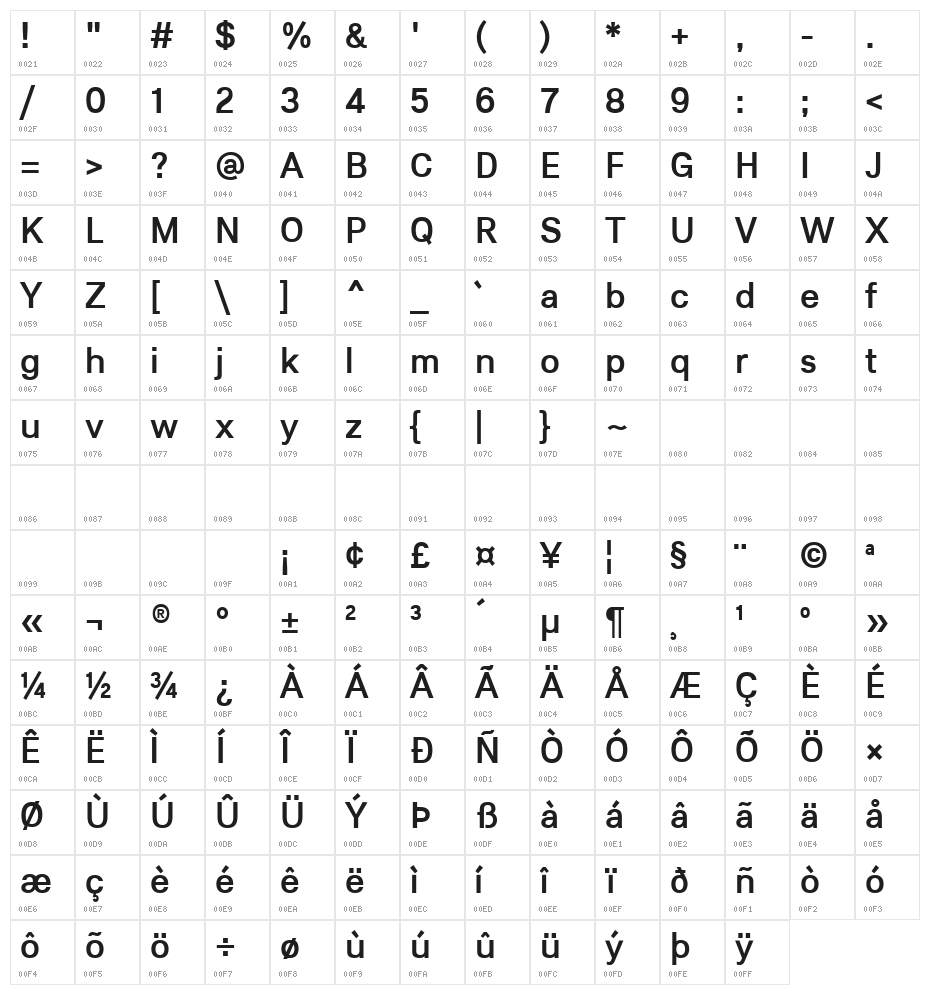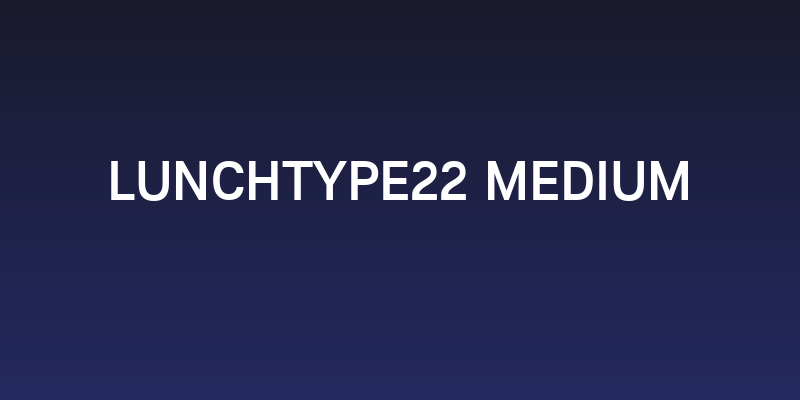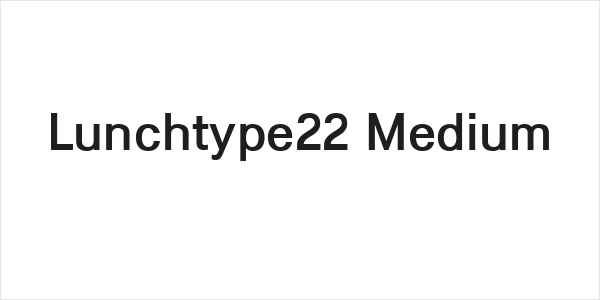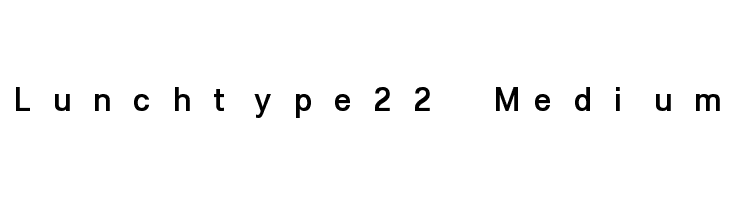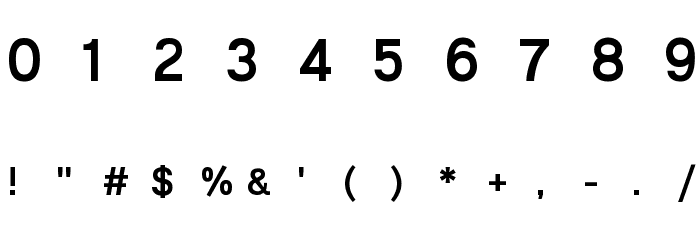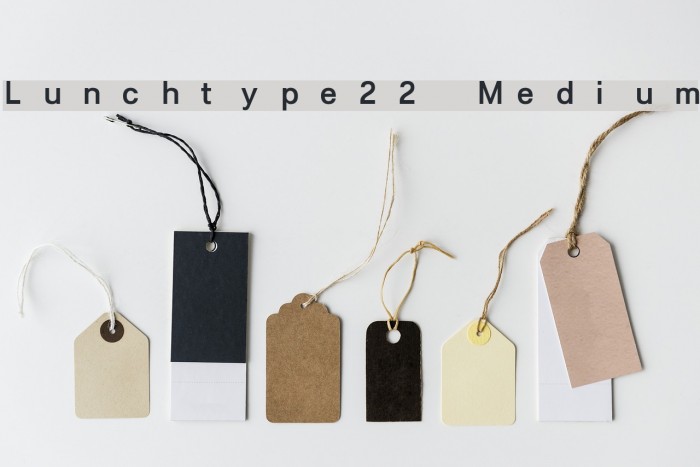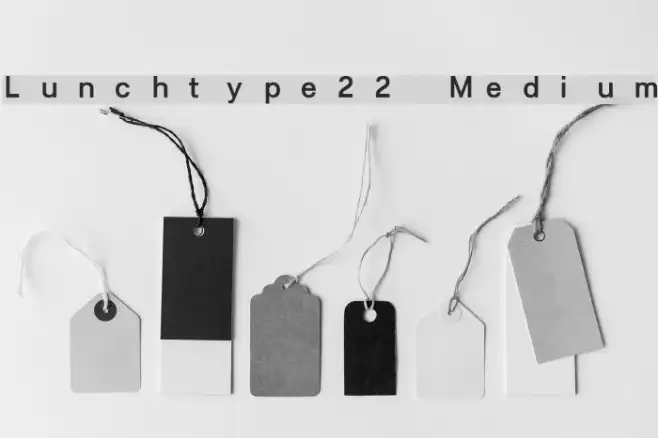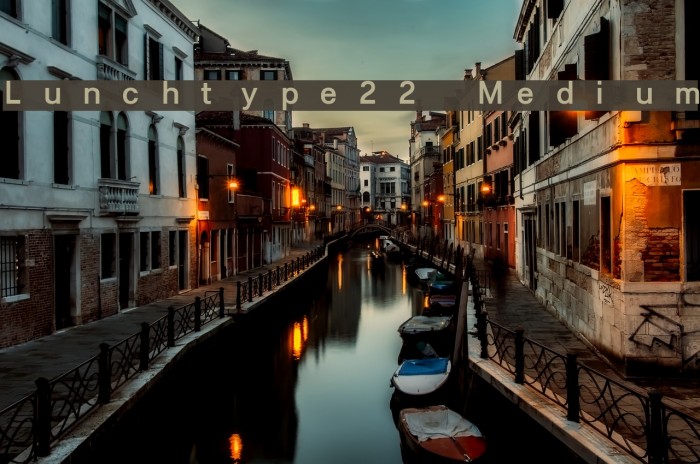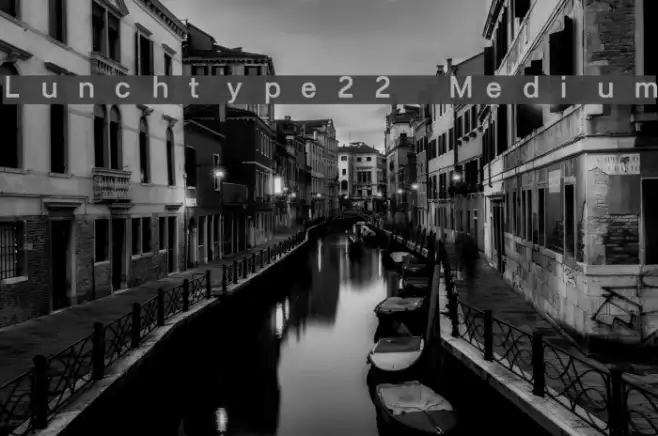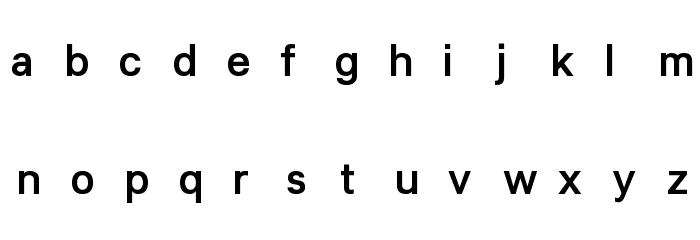
Lunchtype22 Medium Font
Lunchtype22 Medium Description
This font features a clean and modern sans-serif style with uniform stroke widths, providing a balanced and professional appearance. The characters are well-proportioned, offering excellent readability across both uppercase and lowercase letters. The numerals are clear and distinct, making them suitable for various applications. Special characters are included, maintaining the font's cohesive look. The overall design is minimalistic, making it versatile for a wide range of uses.
| Proposed Projects | Ideal for corporate branding, web design, user interfaces, and print media. |